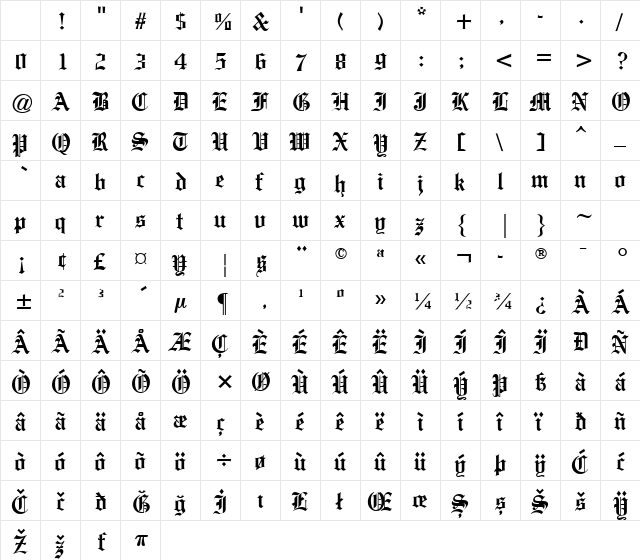
Complete Captive Angel 4 Regular glyph index. Displaying only characters natively supported by Captive Angel 4 Regular font.
Captive Angel 4 is a composed and adaptable typeface that performs quietly and consistently across a wide range of design contexts.